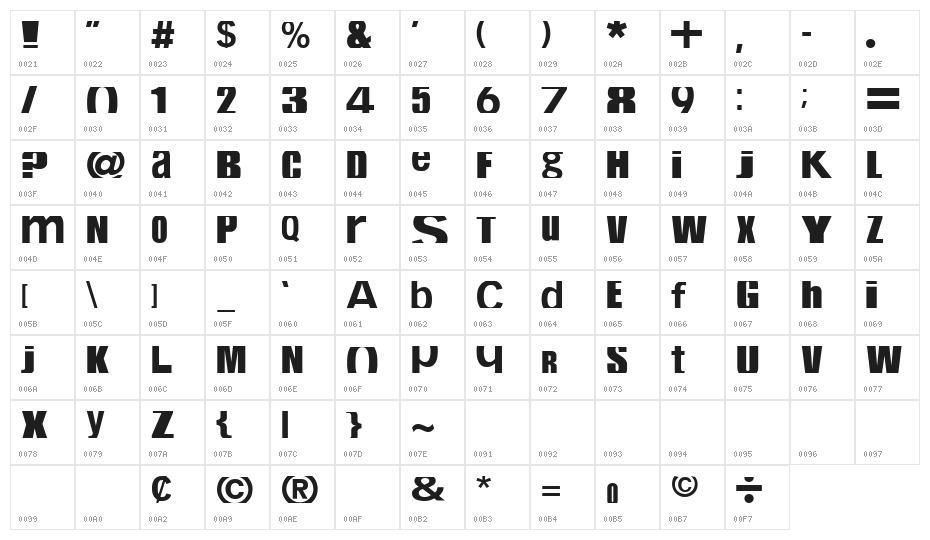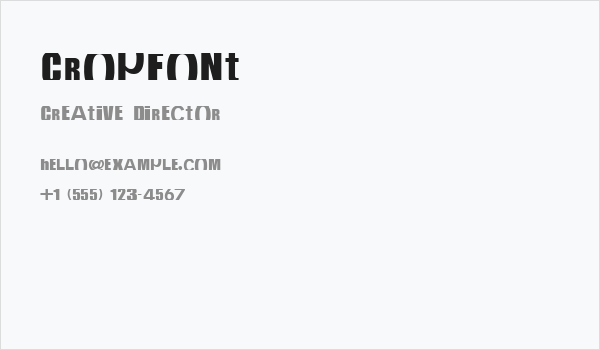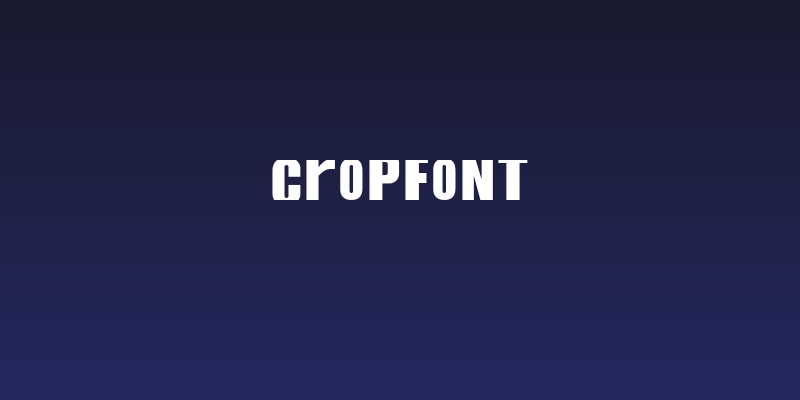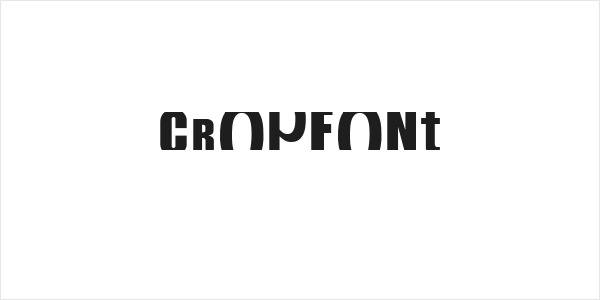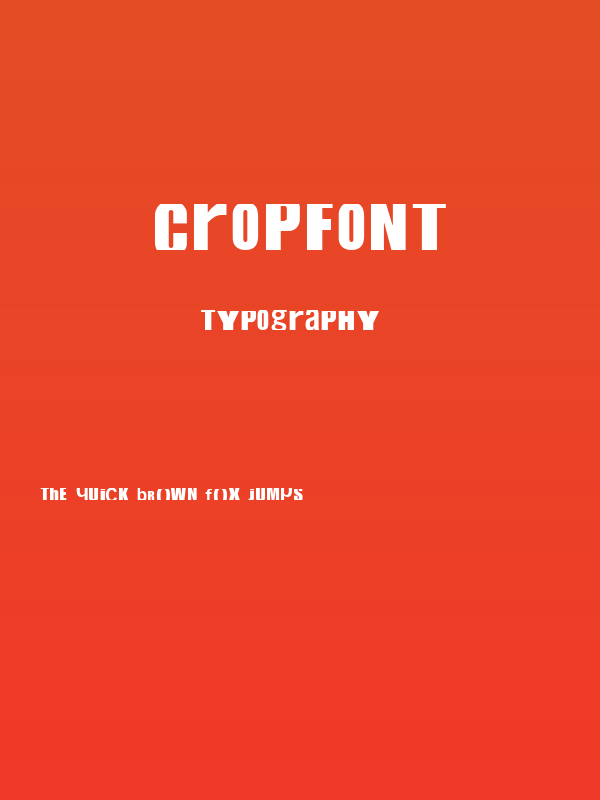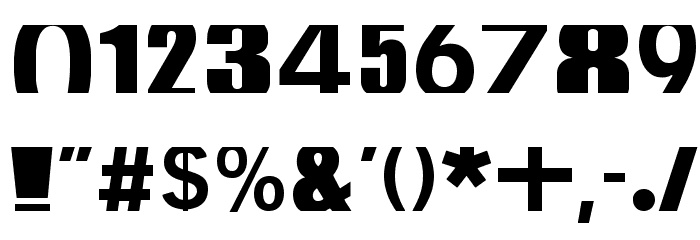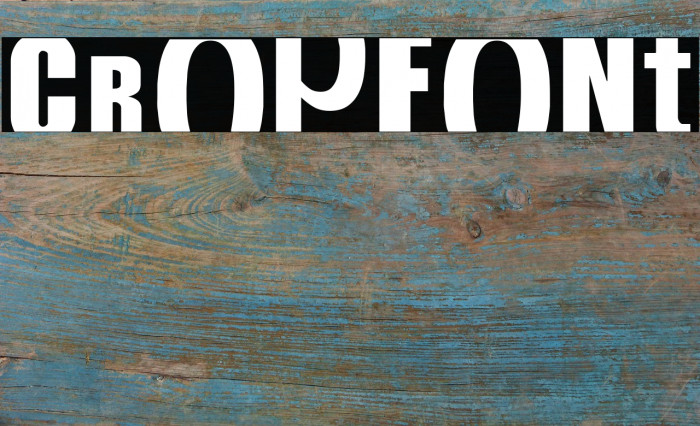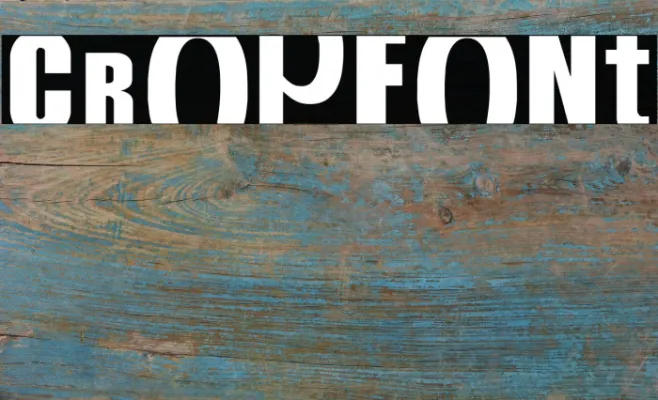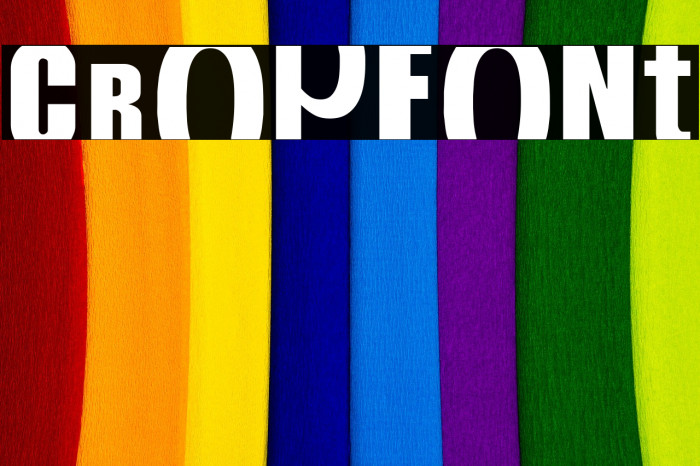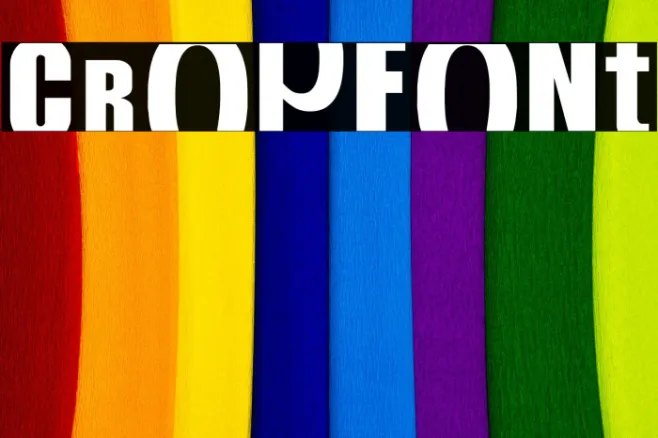
CropFont Font
CropFont Description
This font exhibits a bold and striking design with a unique blend of geometric and angular elements. The characters are crafted with a strong presence, featuring thick strokes and sharp edges that create a sense of dynamism and energy. The uppercase and lowercase letters maintain a consistent style, with some characters showcasing distinctive cutouts and slants that add to the font's modern appeal. The numerals are equally bold, ensuring visibility and impact. Special characters are designed to complement the overall aesthetic, making this font suitable for attention-grabbing designs.